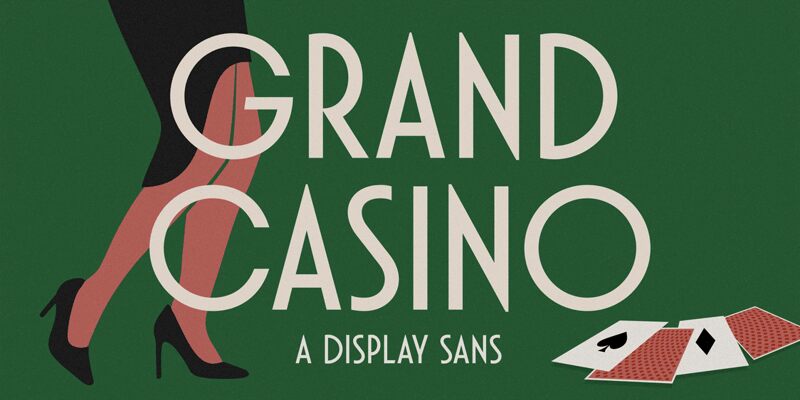
GrandCasino-Regular
Grand Casino font is a sophisticated and elegant retro sans serif font crafted by Letteralle Studios. With its high contrast, geometric form, sharp lines, and classic touch, Grand Casino offers a formal yet timeless appeal. It's a perfect blend of elegance and retro style that adds personality to your projects.
Evoke sophistication across branding, logos, titles, labels, letterheads, flyers/posters - you name it! Additionally perfect for typographic projects like novelty headlines & more!
Grand Casino
Annas Alam Yahya